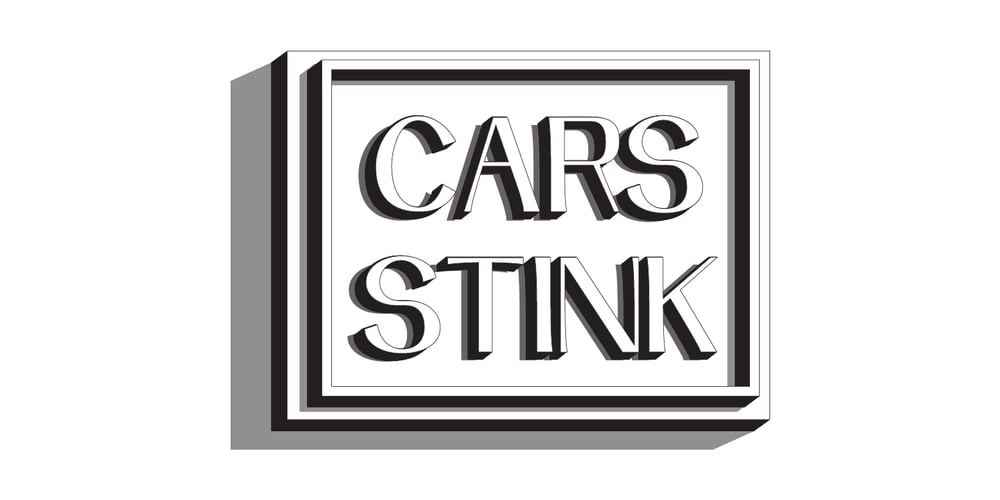
Arqua
Arqua font
Arqua Font Family was designed by Davide Melotti and published by DubbioGusto. Arqua contains 2 styles and family package options. I took Arquà’s curvy lines from some details in art nuveau posters from late 1800 / early ‘900, then I added to the mix a little bit of elegance with some weird contrast (look at the S). One hour in the hoven and a modern looking display font came out in 2 weights: Goodboy and the doppelganger Badboy perfect to mix up.